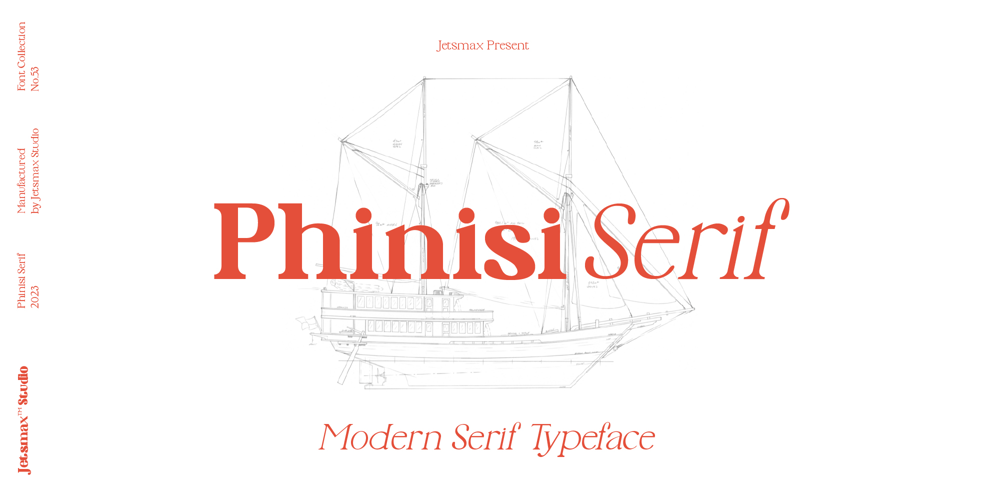
Phinisi Serif
Phinisi Serif font
Phinisi Serif Font Family was designed by Khairil Anwar and published by Jetsmax Studio. Phinisi Serif contains 14 styles and family package options. Phinisi Serif is a modern meets classic, with variety of weight and style this typeface has, it embodied the term of versatile. It’s elegant yet readable and text friendly, perfect for wide range of project from formal editorial to fun and exciting look. Alternate Character, Fraction, Stylistic Alternate, Standard Ligature & Unique Works on PC & Mac Simple installations Accessible in the Adobe Illustrator, Adobe Photoshop, Adobe InDesign, even work on Microsoft Word. PUA Encoded Characters – Fully accessible without additional design software. Fonts include multilingual support for: Afrikaans, Albanian, Catalan, Danish, Dutch, English, French, Hungarian, Icelandic, Italian, Spanish, Portuguese, German, Swedish, Norwegian, Polish, Indonesian, Turkish, Zulu